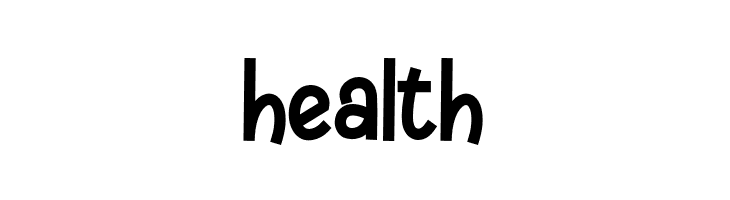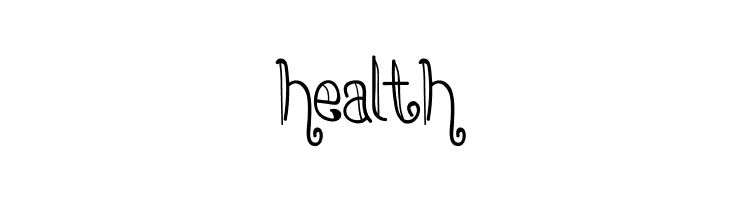
A playful, bold font with rounded characters and whimsical bunny-themed glyphs.
An artistic, Picasso-inspired font with abstract illustrations replacing traditional characters.
A decorative font with whimsical, hand-drawn illustrations and playful text.
A playful font with characters inside star-shaped outlines, perfect for whimsical designs.
A playful, bold font with rounded, hand-drawn characters.
A playful, bold, and rounded font with a hand-drawn, whimsical style.
A playful, bold font with dotted accents inside each character.
A whimsical, curly font with playful loops and flourishes.
A playful, handwritten font with bold, rounded characters and a lively style.
A playful, flowing handwritten font with smooth curves and a casual style.